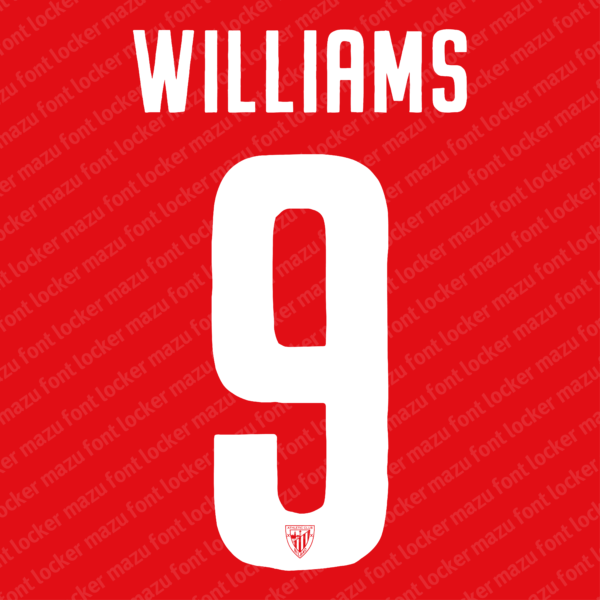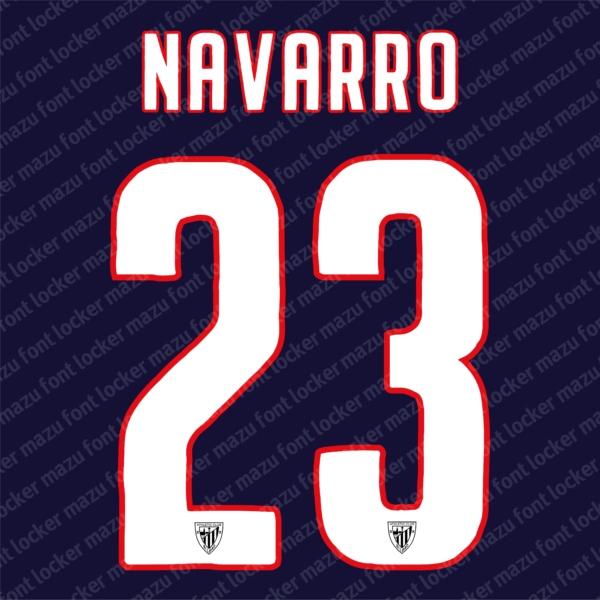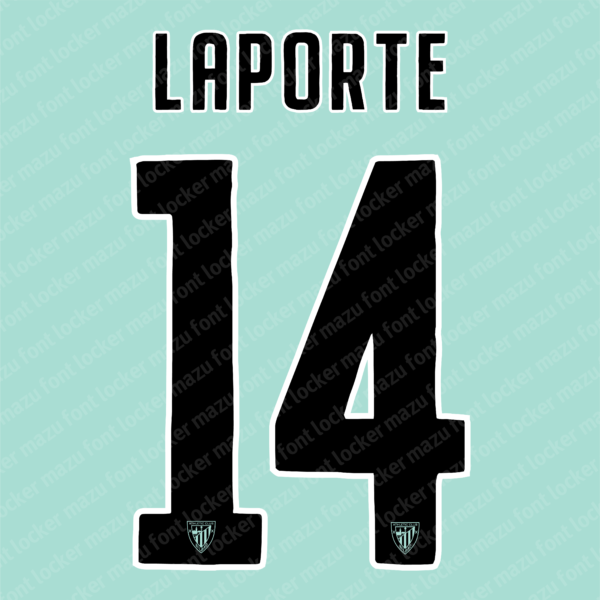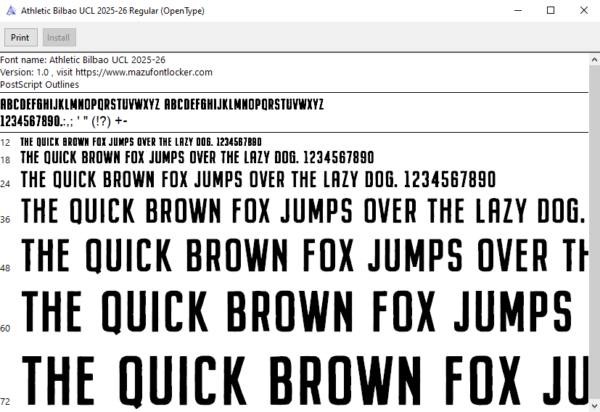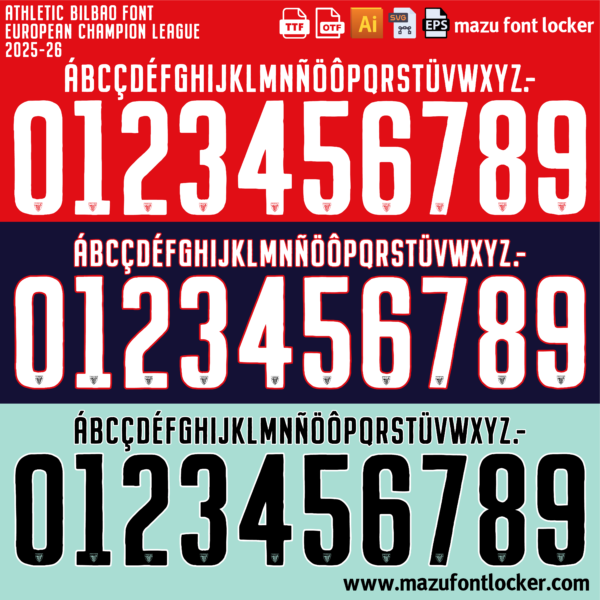
Athletic Bilbao 2025-26 Font Vector – Epic Basque Lions Legacy Masterpiece
This font captures the commanding, historic, and precision-crafted lettering that perfectly reflects Athletic Bilbao’s legendary club identity, proud Basque heritage, unique only-local-player philosophy, and deep-rooted football excellence — delivering unmatched authenticity, premium quality, explosive energy, and pure Spanish football power for professional jersey mockups, dynamic football graphics, premium sports branding, passionate fan creations, and high-end design projects.
Athletic Bilbao 2025-26 Font Vector – Basque Red & White Typeface
The Athletic Bilbao 2025-26 Font Vector is a premium typeface that accurately recreates the official match lettering worn by Athletic Bilbao during the 2025-26 season. This high-quality vector font kit captures the bold, traditional, and instantly recognizable typography that perfectly complements the club’s iconic red and white striped identity and Basque heritage.
Designed for professional designers, football enthusiasts, and passionate Athletic Bilbao supporters, the Athletic Bilbao 2025-26 Font Vector delivers exceptional authenticity for creating realistic jersey mockups, football merchandise, social media graphics, match posters, and custom fan artwork. Every character has been carefully recreated to match the proud visual style of one of Spain’s most unique football clubs.
Why Choose Athletic Bilbao 2025-26 Font Vector
This font stands out thanks to its precise vector construction and authentic club styling. Every letter and numeral has been meticulously recreated to match the official shirt lettering used throughout the 2025-26 La Liga campaign. Whether you’re producing professional kit templates or creating eye-catching football content, the Athletic Bilbao 2025-26 Font Vector delivers a genuine match-ready appearance.
The lettering featured in the Athletic Bilbao 2025-26 Font Vector combines clean geometric lines with powerful modern proportions. The result is a premium and highly readable typeface that reflects Athletic Bilbao’s strong Basque identity, proud tradition, and fighting spirit.
• Complete uppercase A–Z alphabet and numbers 0–9 in authentic Athletic Bilbao 2025-26 style
• Includes authentic La Liga badge glyph placement beneath player numbers
The Athletic Bilbao 2025-26 Font Vector is an independently designed typeface package inspired by the official shirt lettering worn during the 2025-26 season. It has been carefully recreated for football enthusiasts, graphic designers, collectors, and creators producing custom jersey concepts, football artwork, and fan-made projects.